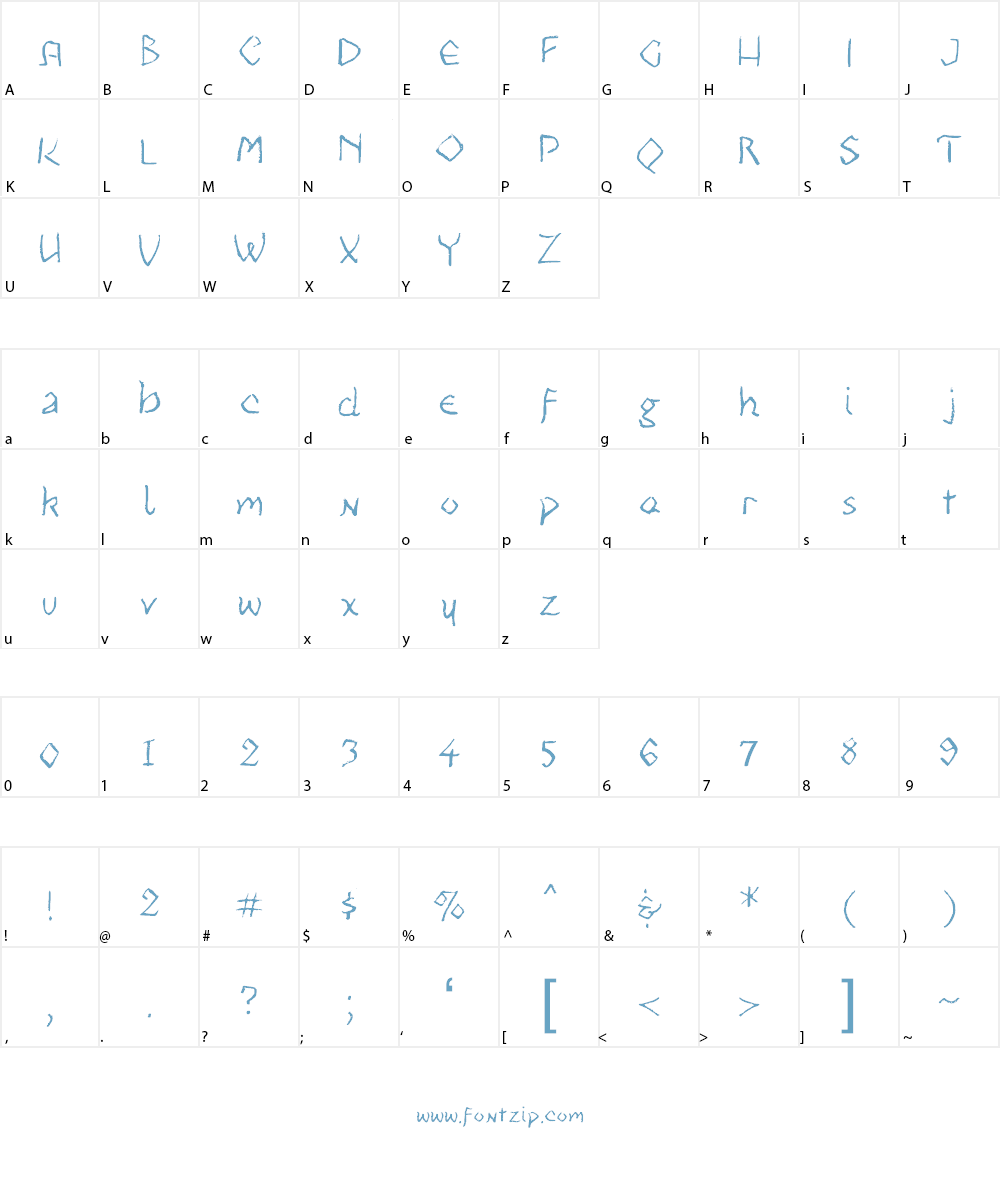
Kabbalah is a word of Jewish/Hebrew origin meaning receiving tradition. The word is also used in the spiritual faiths of New Age, Occult-Wicca, and to a very limited degree...Christianity. This font will be one of two to replace the popular Tribal font's place at fontspace.com. The other is Tribal Cursive. Tribal is being redone and then will be released under one of it's former names "Native American Honor" or "NAH" for short. The font Kabbalah will replace was used a lot as the base font for this design.
As a result Kabbalah has a lot of the same spiritual and ethnic feel as Tribal. Unlike Tribal which was created in the 1980's and digitalized in 2012, Kabbalah was created and is being introduced to you as a totally new font drawn and digitalized both in October, 2014. Now that SWMCA is organized by the Freelancers Union of New York City, it's also a pleasure to announce Kabbalah as SWMCA's first fully union-made font download.